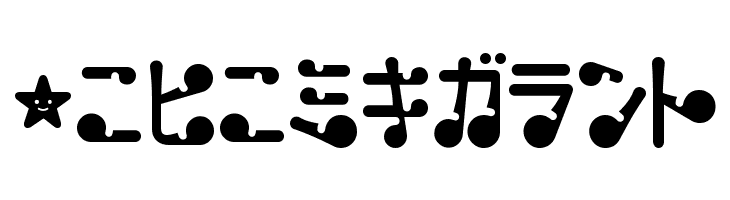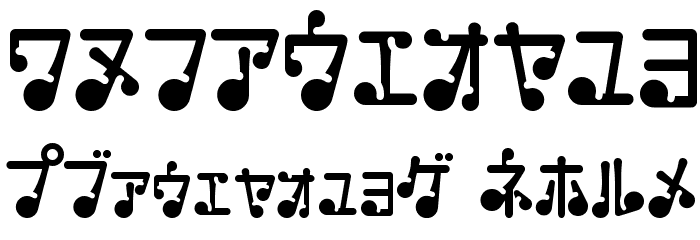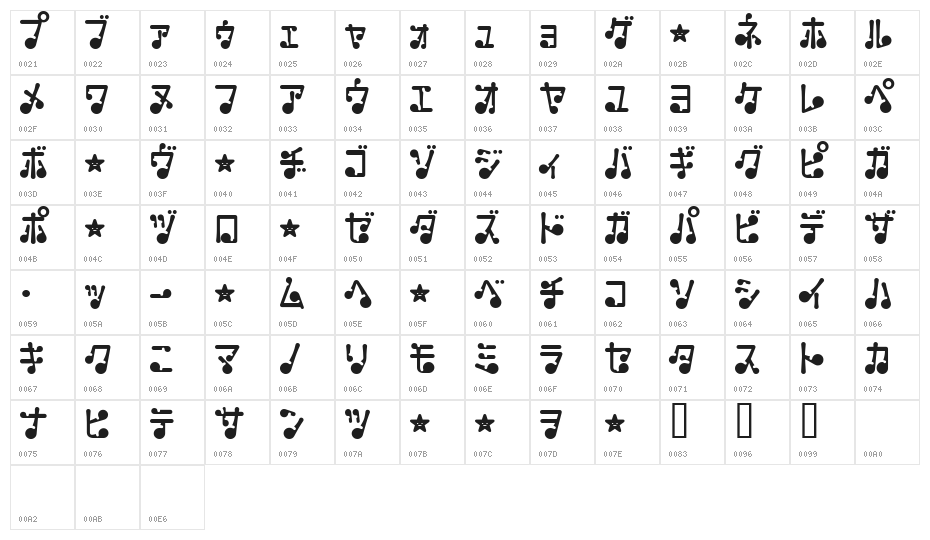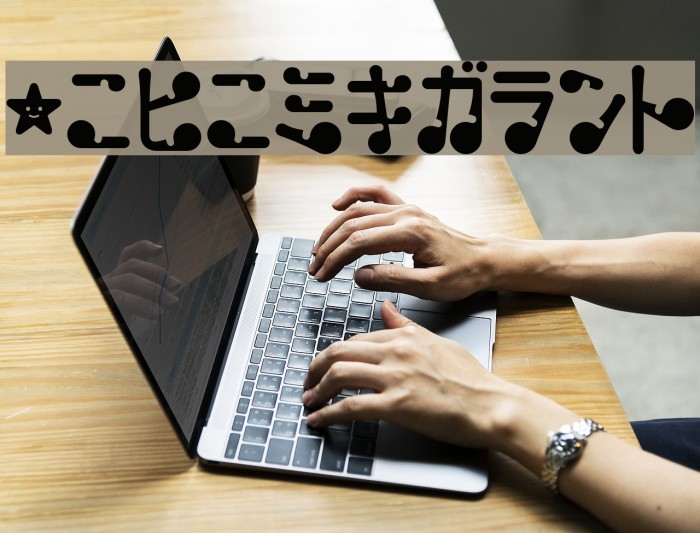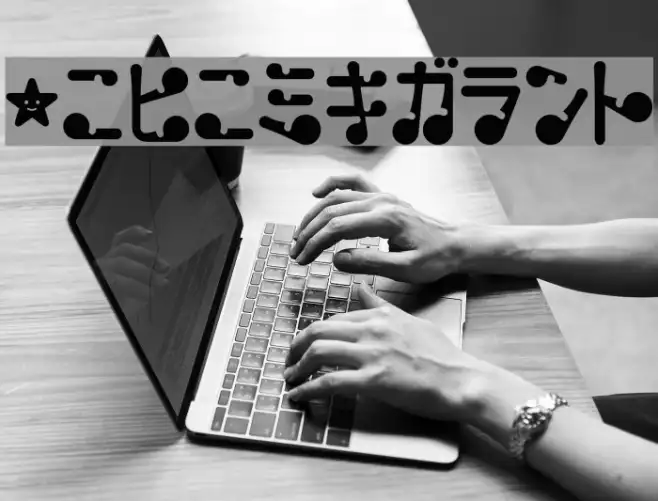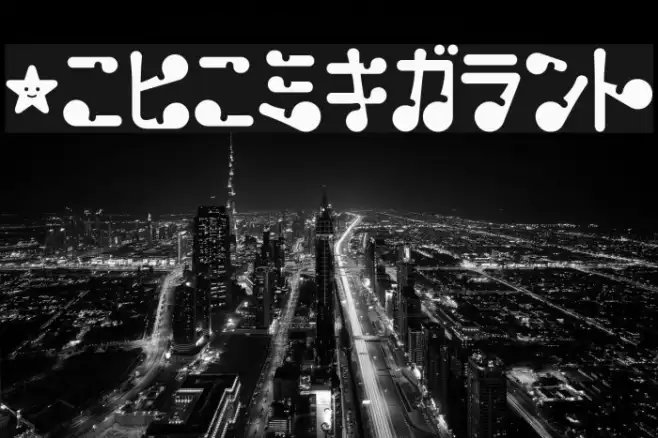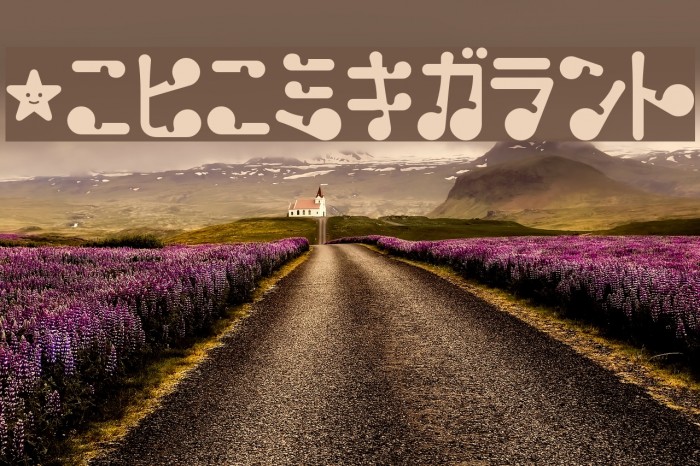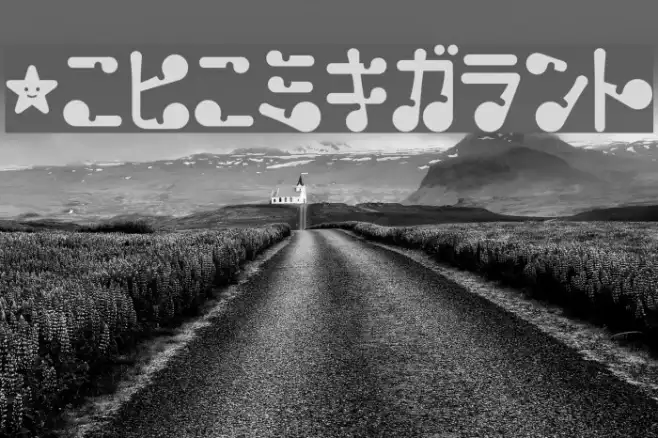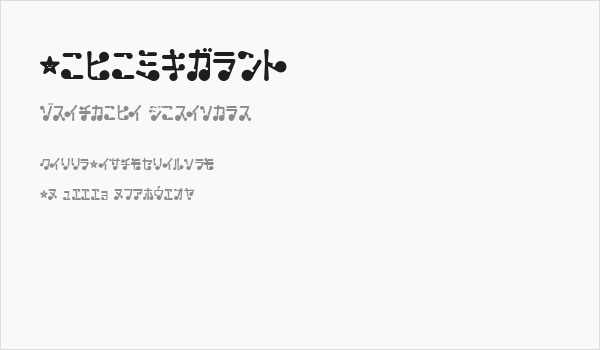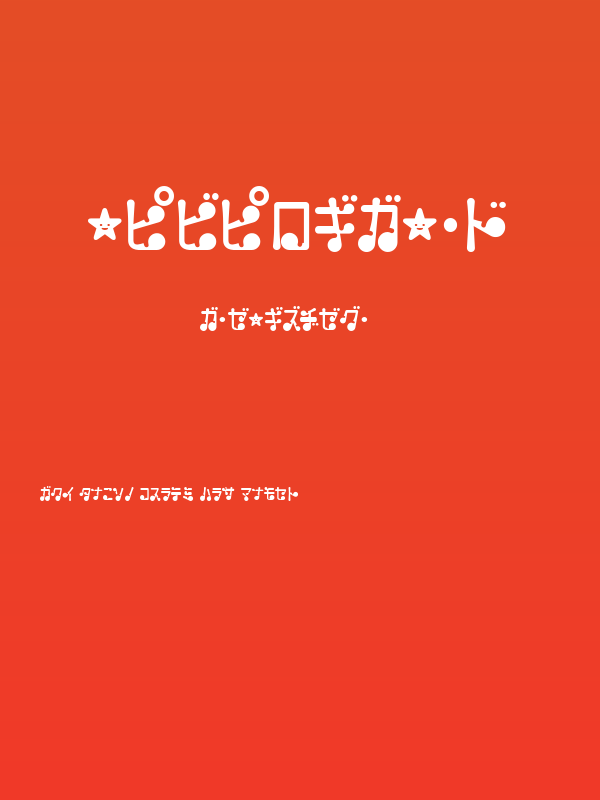
LivingToys Font
LivingToys Description
This font features a playful and whimsical design, characterized by its bold, rounded shapes and musical note-like elements. Each character is adorned with circular accents that resemble musical notes, giving it a unique and lively appearance. The font maintains a consistent thickness throughout, with a strong emphasis on rounded forms and smooth curves. Its decorative style makes it stand out, perfect for projects that require a fun and engaging visual element. The font's design is both eye-catching and memorable, making it suitable for creative and artistic applications.
Use CaseLogos, Posters, Creative Projects
Proposed ProjectsIdeal for children's books, music-themed posters, playful branding, and creative invitations.